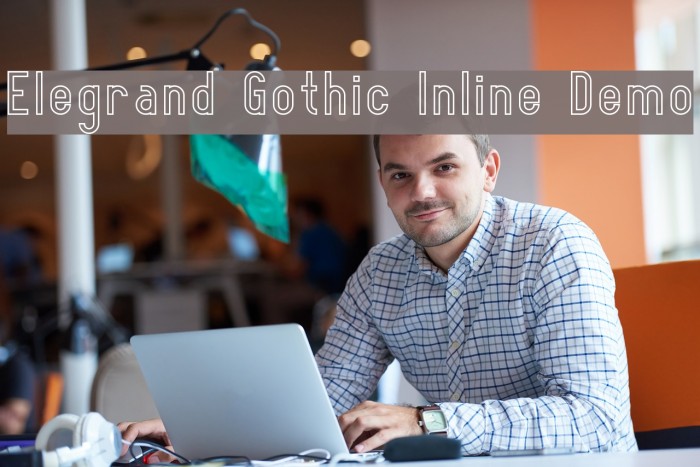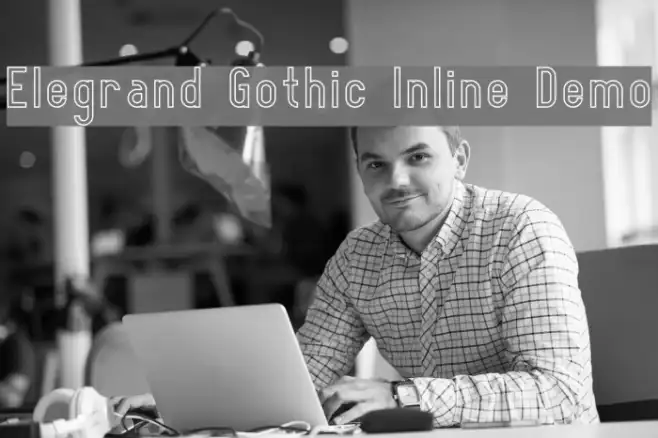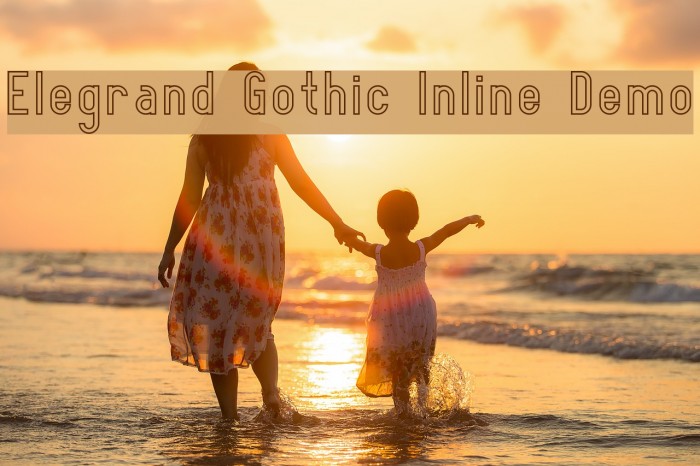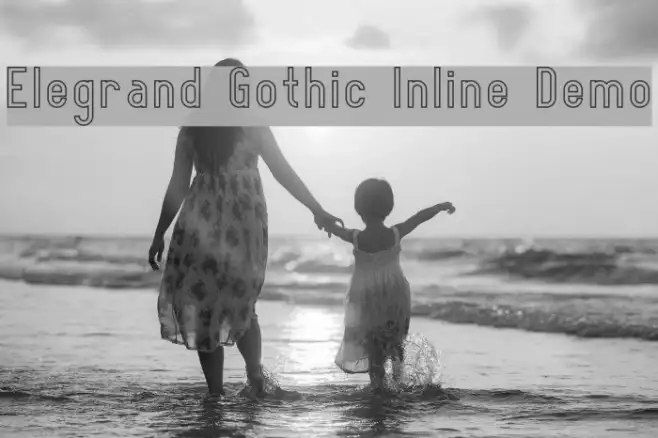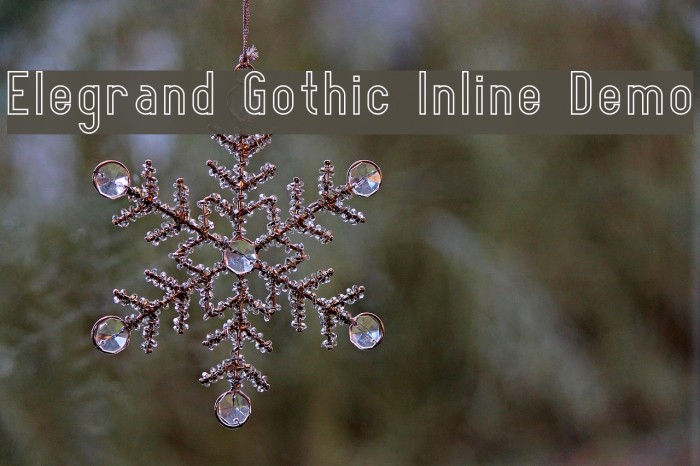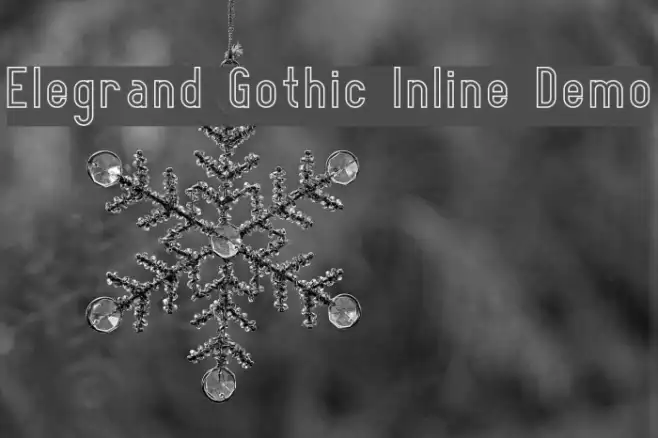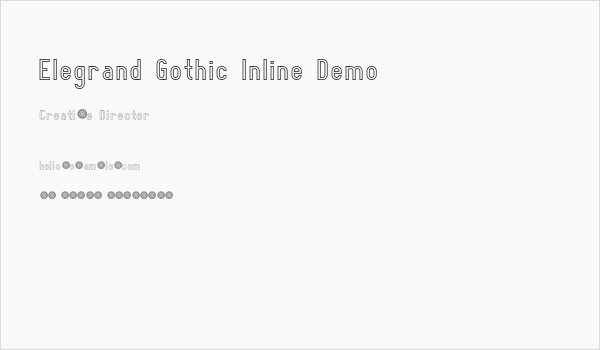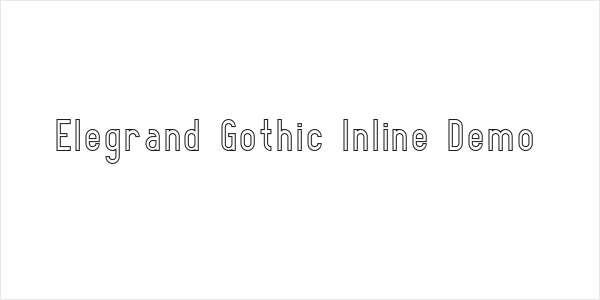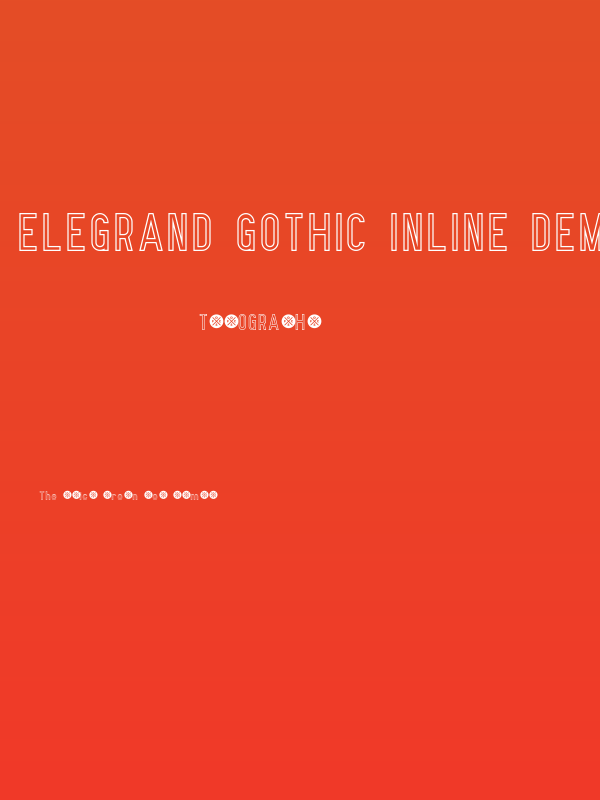
Elegrand Gothic Inline Demo Font
Elegrand Gothic Inline Demo Description
This font features a modern, inline design with a clean and structured appearance. The uppercase and lowercase letters are crafted with a geometric precision, showcasing a balance between bold outlines and open spaces within each character. The inline style adds a unique dimension, making it stand out for creative uses. The numerals and special characters maintain the same aesthetic, ensuring consistency across all text elements. This font is ideal for projects that require a contemporary and stylish look, such as branding, advertising, and digital media.
| Proposed Projects | Ideal for branding, advertising, digital media, and creative projects requiring a stylish and contemporary look. |